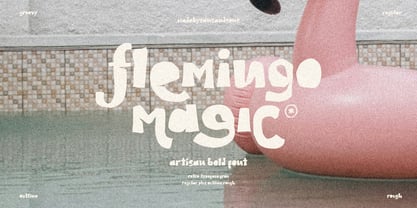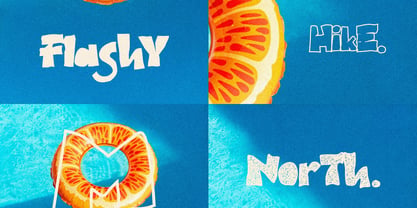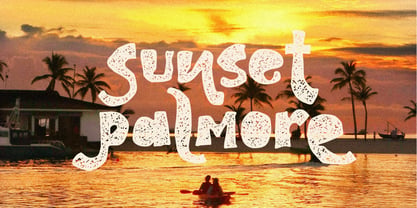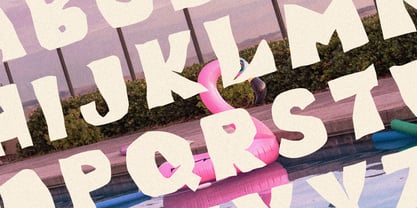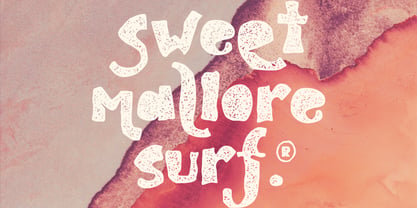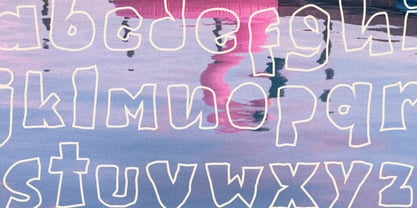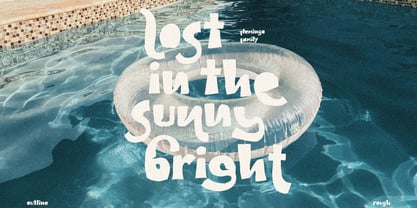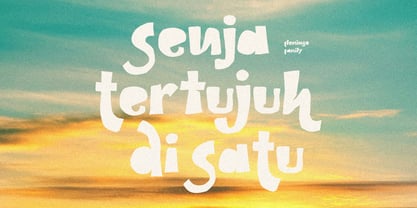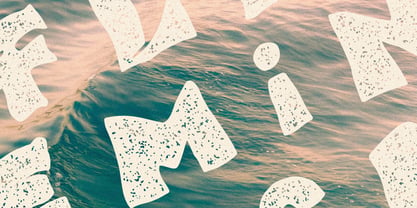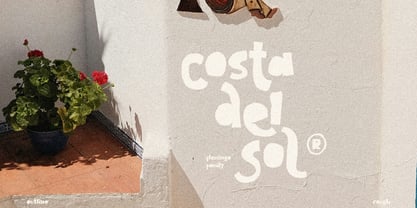
Flemingo Magic
by Sans And Sons
The Flemingo Magic Font Family was designed by Angga Suwista and published by Sans And Sons. Flemingo Magic contains 3 styles and family package options. More about this family
Flemingo Magic is a bold retro display font packed with playful curves and expressive letterforms. Inspired by vintage aesthetics with a fresh artistic twist, it brings a distinctive personality that instantly grabs attention.
Available in Regular, Outline, and Rough styles, Flemingo gives you the creative freedom to mix clean, outlined, and textured looks in a single type family. Whether you're building a nostalgic brand identity or designing bold headlines, Flemingo adds a fun, artistic, and unforgettable touch to every project.
Designed to stand out, impossible to ignore.
Why You'll Love Flemingo
- Bold retro style with a modern artistic feel.
- Three versatile styles to expand your creative possibilities.
- Perfect for eye-catching headlines and memorable branding.
- Carefully crafted to bring personality and character to every design.
Designed for creatives who love bold ideas and unforgettable typography, Flemingo is more than just a font, it's a statement.